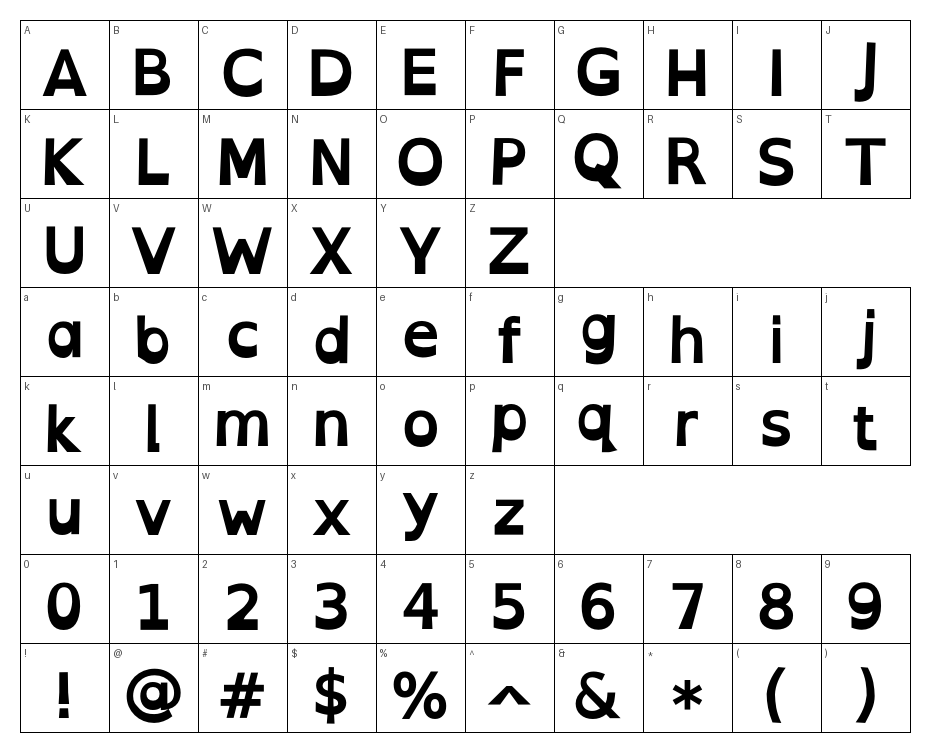
Font created to help dyslexic readers. Bottom heavy and unique character shapes help make it more difficult to confuse letters.
Included are 3 styles of OpenDyslexic: OpenDyslexic, OpenDyslexic w/ alt rounded a's, and OpenDyslexicMono: for your fixed-width font needs.
Font Name: Open-Dyslexic
Designer Name: Abelardo Gonzalez